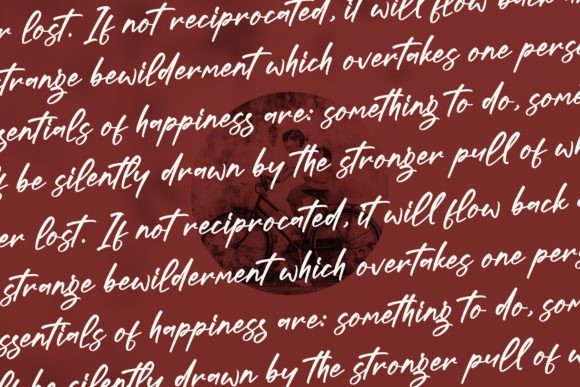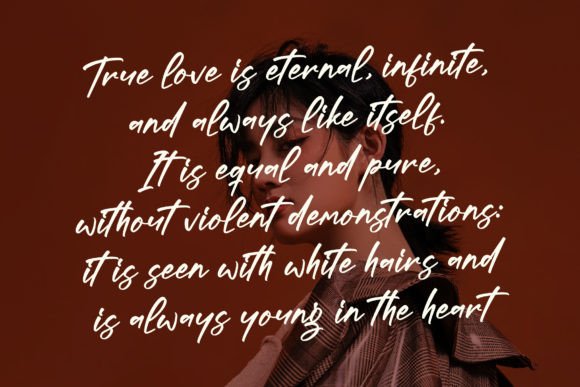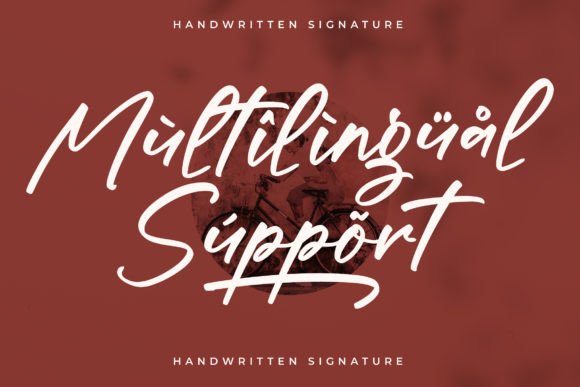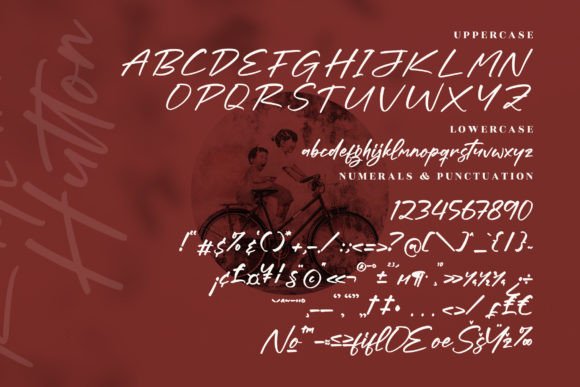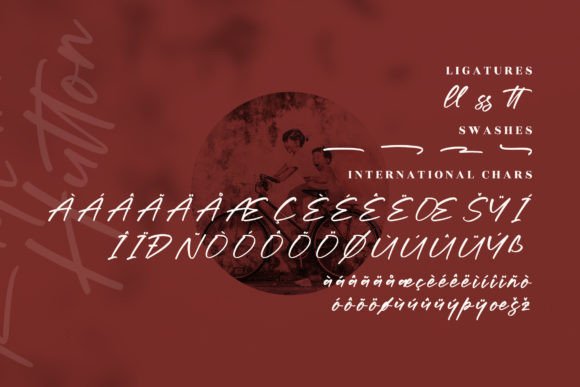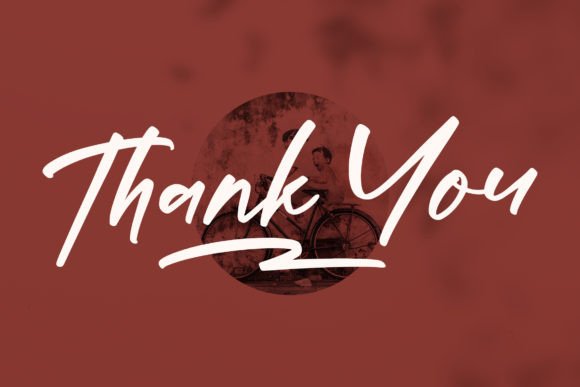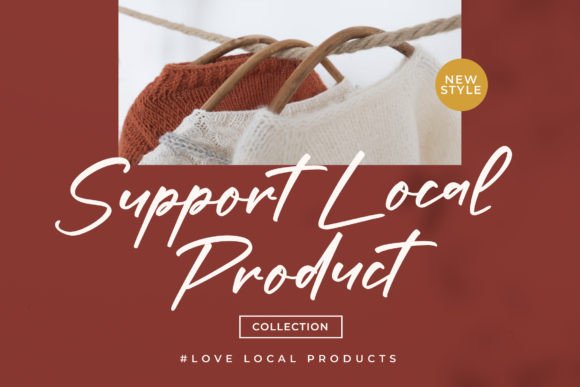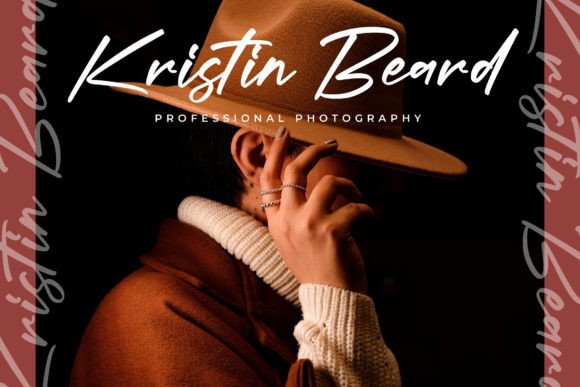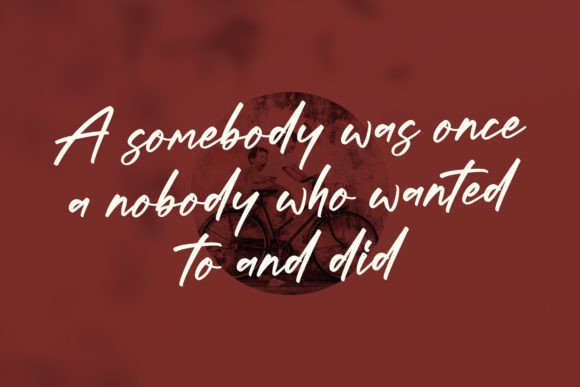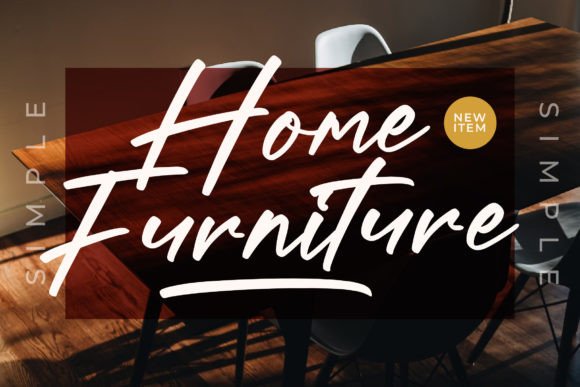
Kaylum Hutton Font
About Kaylum Hutton Font
**Kaylum Hutton – Handwritten Signature Font for Elegance and Versatility**
The Kaylum Hutton handwritten signature font is a versatile and elegant typeface that can elevate a wide range of design projects. Its authentic signature style adds a personal and sophisticated touch to your creations. Here are some of the ways you can utilize Kaylum Hutton in your various design endeavors:
1. **Logos:** Create unique and memorable logos for your brand or business. Kaylum Hutton’s handwritten signature style can make your logo stand out and leave a lasting impression.
2. **Branding Projects:** Establish a cohesive and stylish brand identity by incorporating Kaylum Hutton into your branding materials, including business cards, letterheads, and packaging.
3. **Homeware Designs:** Design homeware products such as mugs, coasters, and kitchenware featuring Kaylum Hutton’s elegant script for a touch of sophistication.
4. **Product Packaging:** Enhance the visual appeal of your product packaging, whether it’s for cosmetics, gourmet foods, or fashion items. Kaylum Hutton’s signature font can add a sense of luxury.
5. **Quotes:** Create visually appealing quote graphics for social media posts, websites, or print materials. Kaylum Hutton’s elegant script adds charm to inspirational and motivational messages.
6. **Posters:** Design eye-catching posters for events, promotions, or art prints. Kaylum Hutton’s signature style can make your poster designs elegant and attention-grabbing.
7. **Shopping Bags:** Customize shopping bags for your retail business with Kaylum Hutton’s handwritten signature font to make your brand more memorable.
8. **T-Shirts:** Print Kaylum Hutton’s elegant script on t-shirts and apparel for a stylish and sophisticated look.
9. **Book Covers:** Use Kaylum Hutton for book titles and author names on book covers to create an elegant and timeless design.
10. **Name Cards:** Design professional and stylish name cards for yourself or your business associates. Kaylum Hutton’s signature font adds a personal touch.
11. **Invitation Cards:** Create elegant and inviting invitation cards for weddings, parties, or special events. Kaylum Hutton’s script font adds a touch of sophistication to your invitations.
12. **Greeting Cards:** Design beautiful and heartfelt greeting cards for various occasions, from birthdays to holidays, using Kaylum Hutton’s elegant signature font.
13. **Labels:** Customize product labels, wine labels, or gift labels with Kaylum Hutton’s handwritten signature for a refined and personal touch.
14. **Photography Watermark:** Protect your photography while adding a unique and elegant watermark with Kaylum Hutton’s signature style.
15. **Special Events:** Use Kaylum Hutton’s signature font for special event materials such as menus, place cards, and programs to create a memorable and sophisticated atmosphere.
Kaylum Hutton’s handwritten signature font offers a perfect balance of elegance and versatility, making it suitable for a wide range of design projects. Its authentic and personalized style can add a touch of sophistication to your branding, marketing, and creative endeavors.